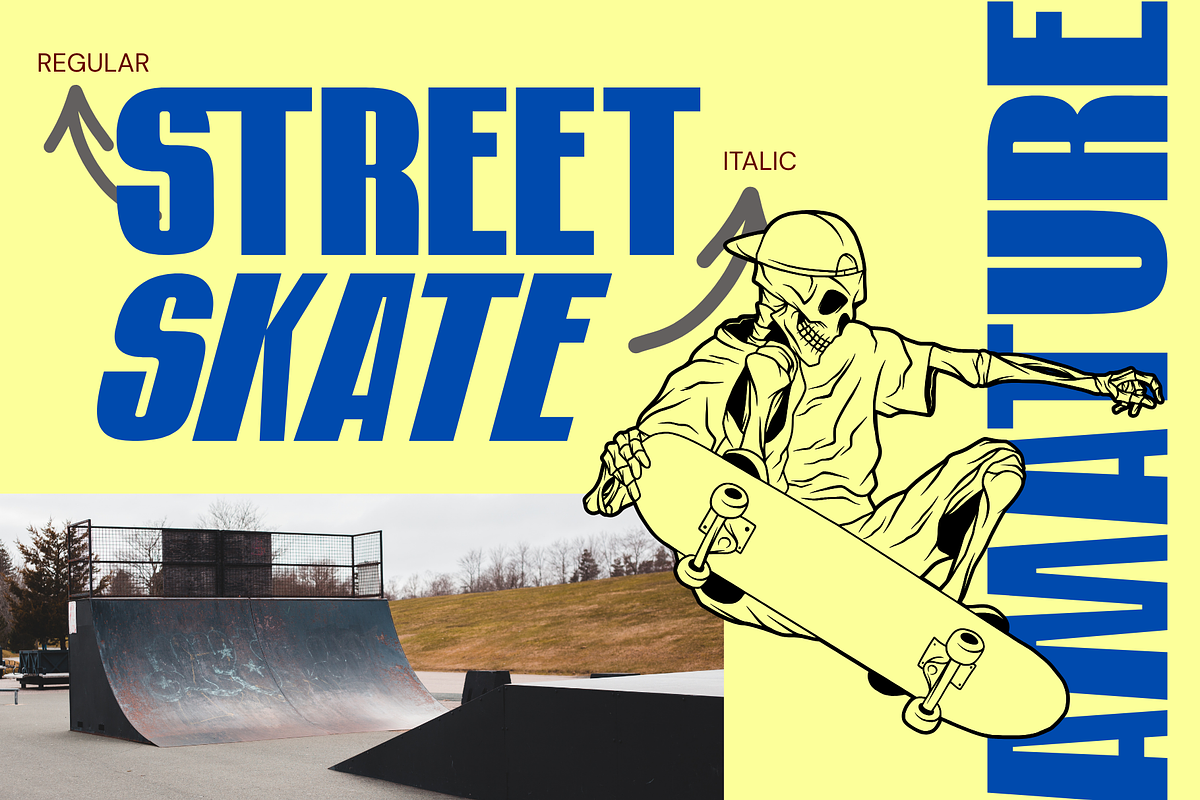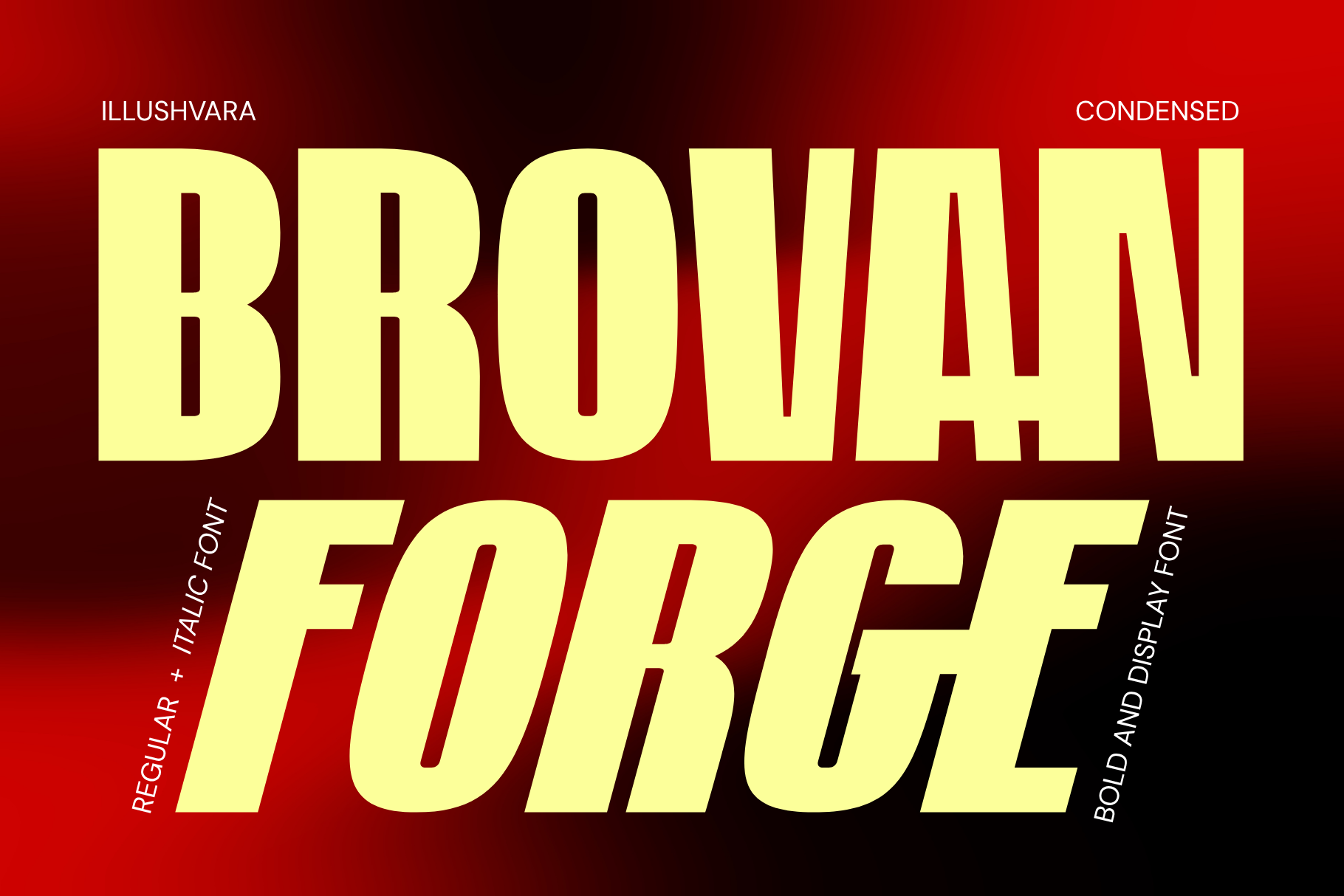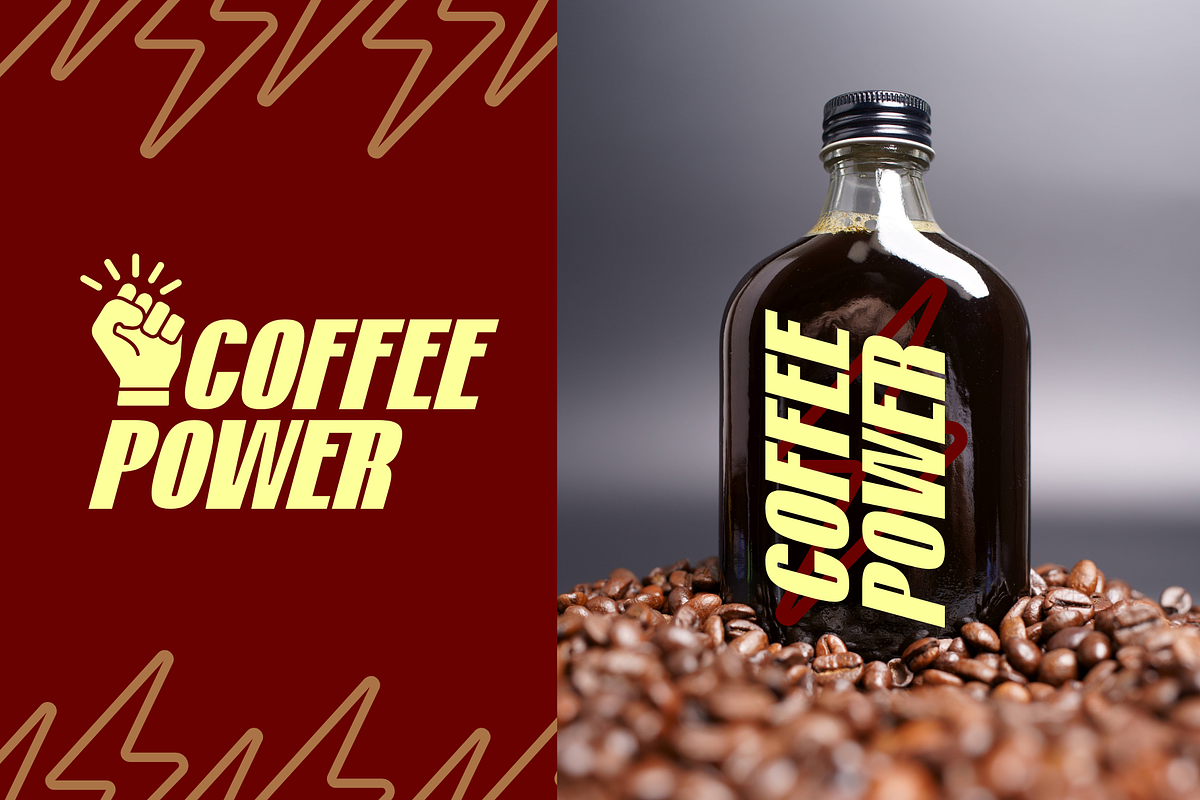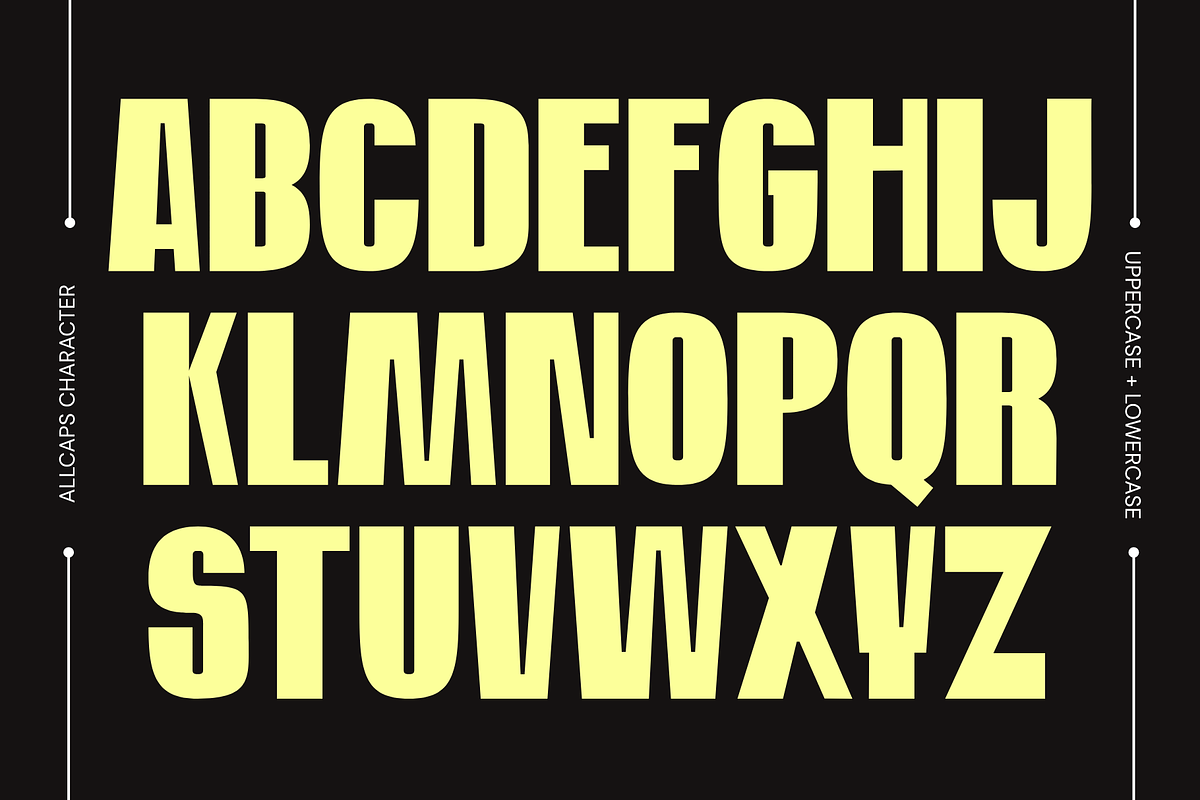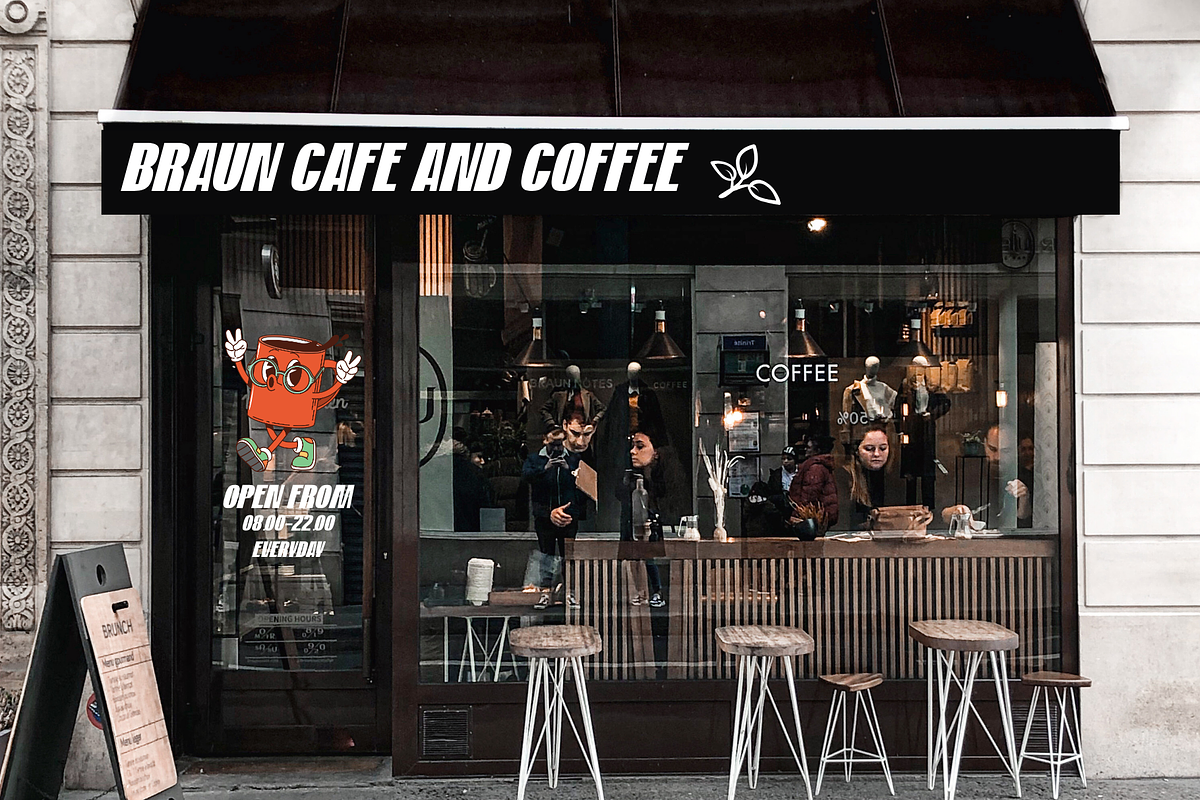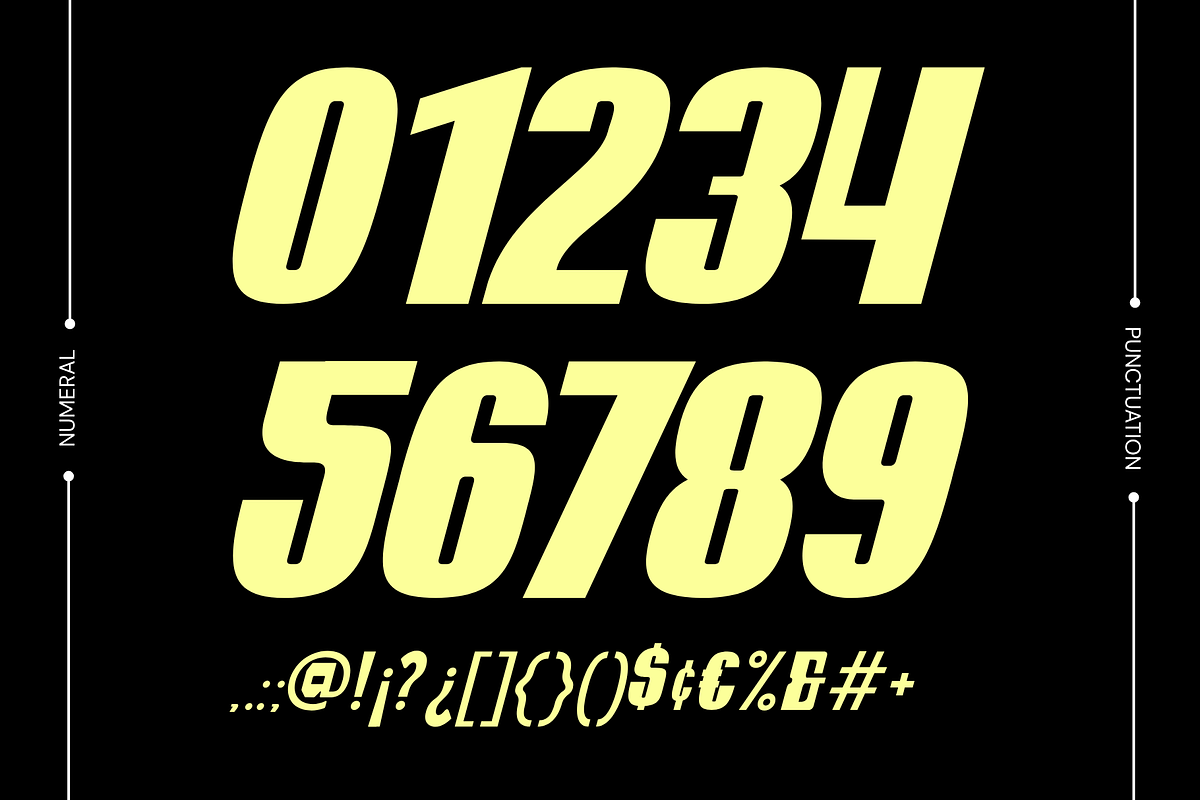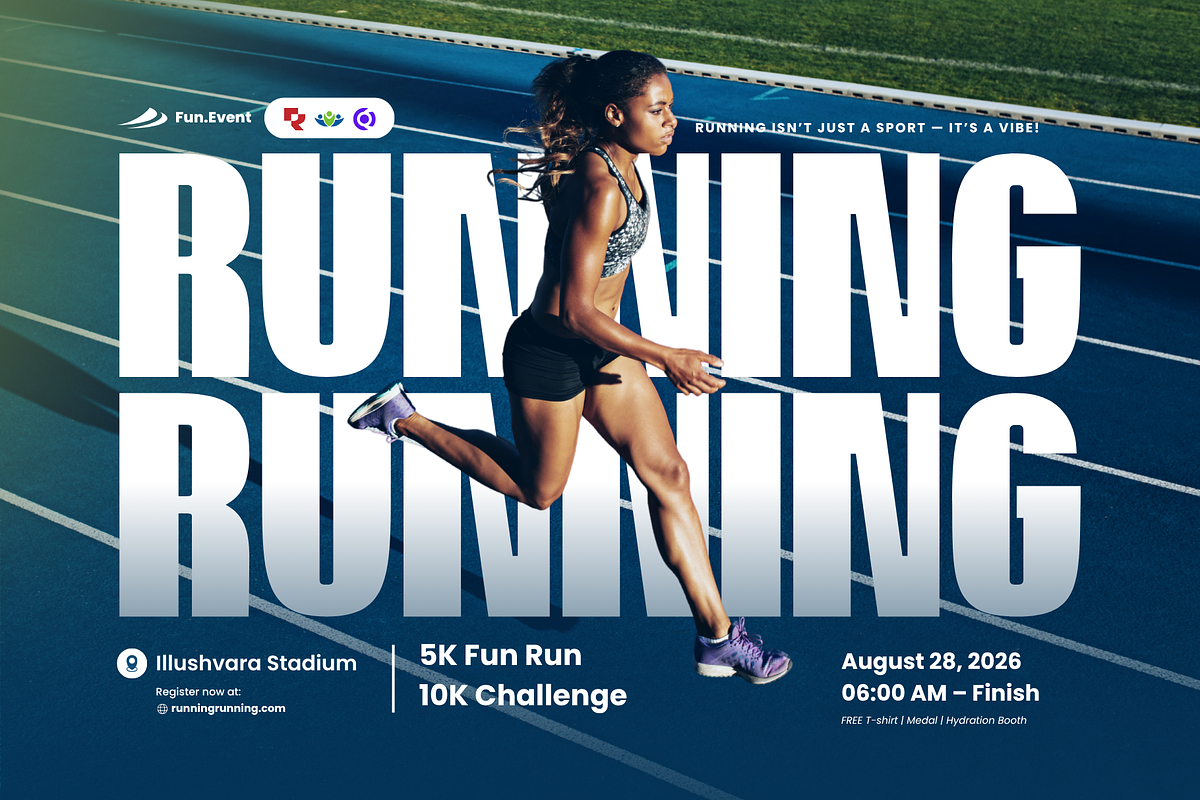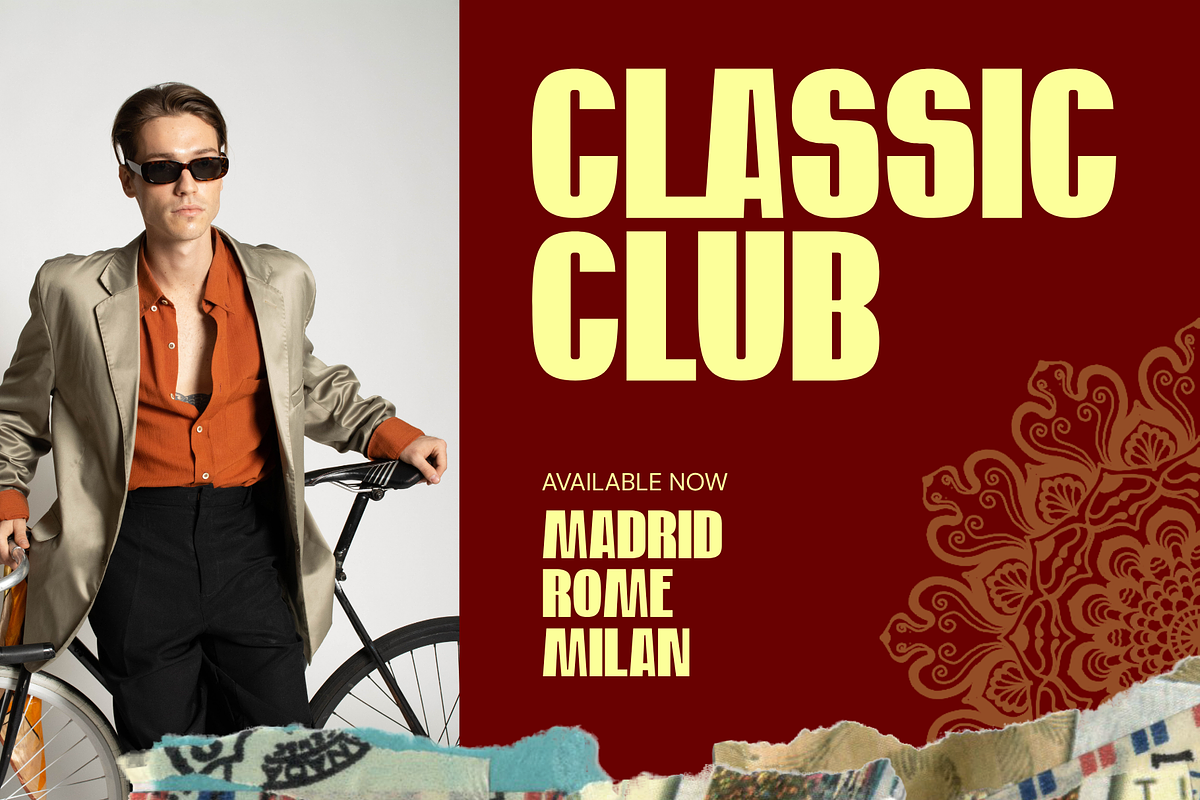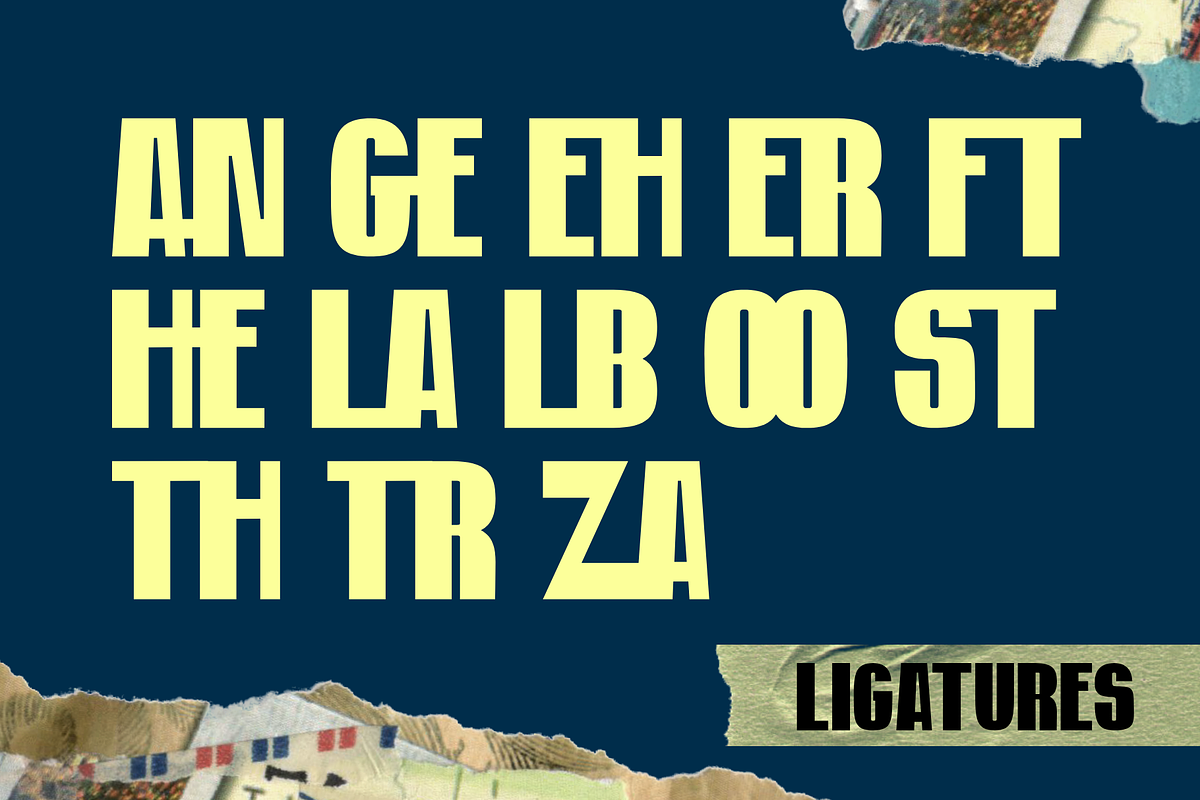
Brovan Forge - Bold Condensed Font
Brovan Forge is a bold condensed display font crafted to make every headline stand out. Including Regular and Italic styles, it delivers a strong, modern, and athletic look perfect for sports branding, running events, padel and tennis graphics, racing, posters, signage, packaging, logos, social media, and editorial headlines. Its space-saving condensed design creates maximum visual impact while remaining clean and highly readable. Whether you're building a powerful brand identity or eye-catching promotional materials, Brovan Forge is the perfect choice for bold typography that demands attention.
FEATURES : Uppercase, Lowercase, Number, Punctuation, Multilingual, PUA Encode, Opentype Character, Ligatures.